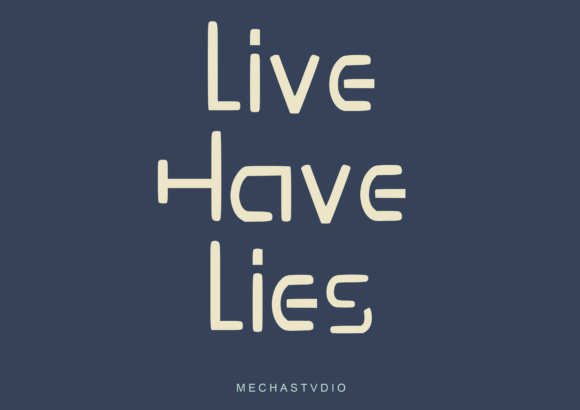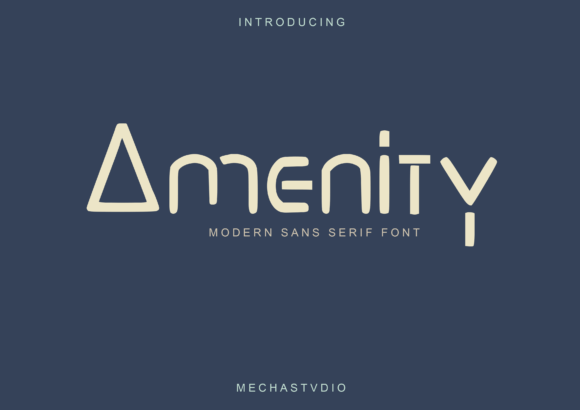
I still remember the frustration of working on a project, hours poured into every detail, only to hit a roadblock: finding the right font. My client wanted something modern, clean, and unique – a font that would make their brand stand out. I scoured the internet, tried countless fonts, but nothing seemed quite right. That was until I stumbled upon Amenity Font.
**The game-changer** I’d been searching for. Its sleek, sans-serif design and distinctive style instantly caught my attention. I knew right then and there that Amenity Font was going to be a game-changer for my projects, and I’m excited to share its awesomeness with you.
An Honest Review of Amenity Font
- ✨ **Modern and Clean**: Amenity Font boasts a contemporary look that’s perfect for a wide range of projects, from branding to digital media.
- ✅ **Unique Style**: Its distinctive sans-serif design sets it apart from more generic fonts, ensuring your project stands out.
- 💡 **Versatile**: Whether you’re working on a professional project or a personal craft, Amenity Font adapts seamlessly.
While Amenity Font is incredibly versatile and well-designed, there are a few minor considerations:
- 🤔 **Limited Serif Options**: As a sans-serif font, it might not be the best fit for projects requiring a traditional or serif look.
- ⚠️ **Glyph Variety**: While it offers a range of glyphs and OpenType features, some users might find the selection a bit limited for very specialized projects.
The Story Behind Amenity Font
Amenity Font was crafted with the modern designer in mind. Its creator, inspired by the evolving landscape of digital and print design, sought to produce a font that was not only aesthetically pleasing but also highly functional. The goal was to create a typeface that could seamlessly transition across various platforms and projects, offering a unique yet versatile solution for designers.
Q: Is Amenity Font suitable for body text?
A: Absolutely! Its clean and modern design makes it highly readable, even in larger blocks of text.
Q: Does Amenity Font support multiple languages?
A: Amenity Font offers a range of glyphs and supports various languages. Check the font documentation for specific language support.
Q: How does Amenity Font compare to other sans-serif fonts?
A: Amenity Font stands out due to its unique style and modern aesthetic. While similar to other clean sans-serif fonts, its distinctive character sets it apart.